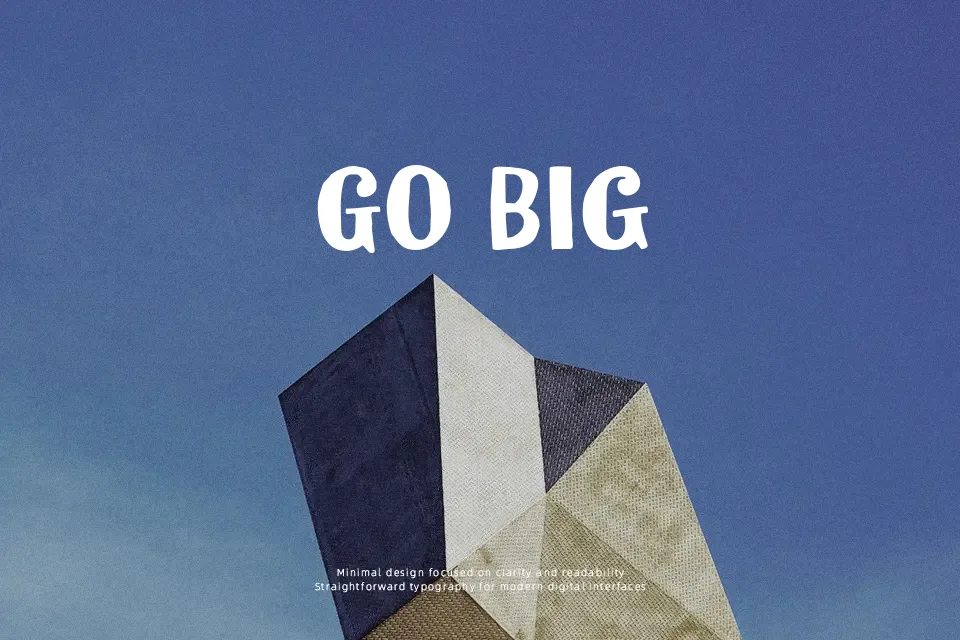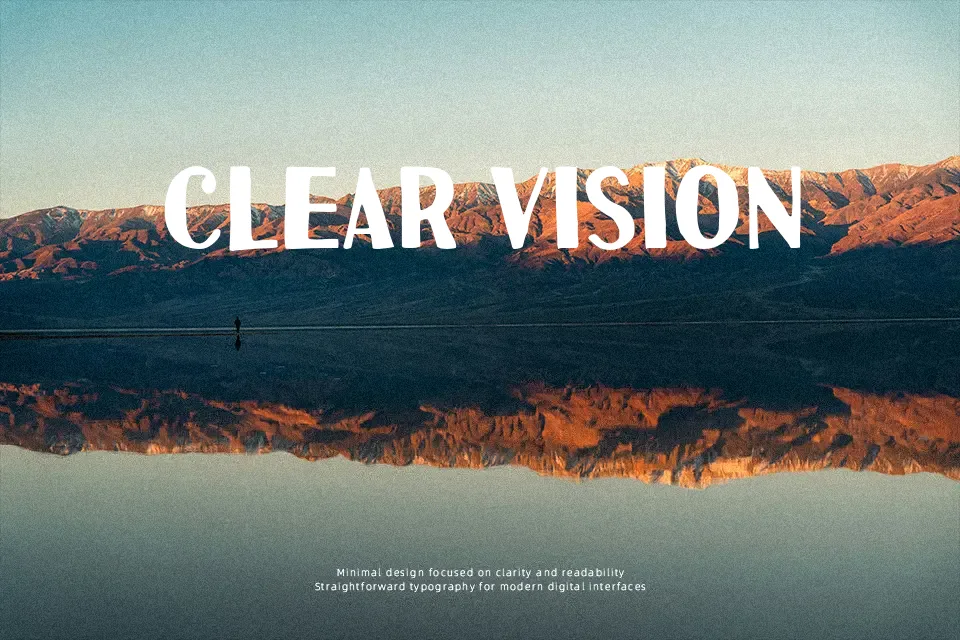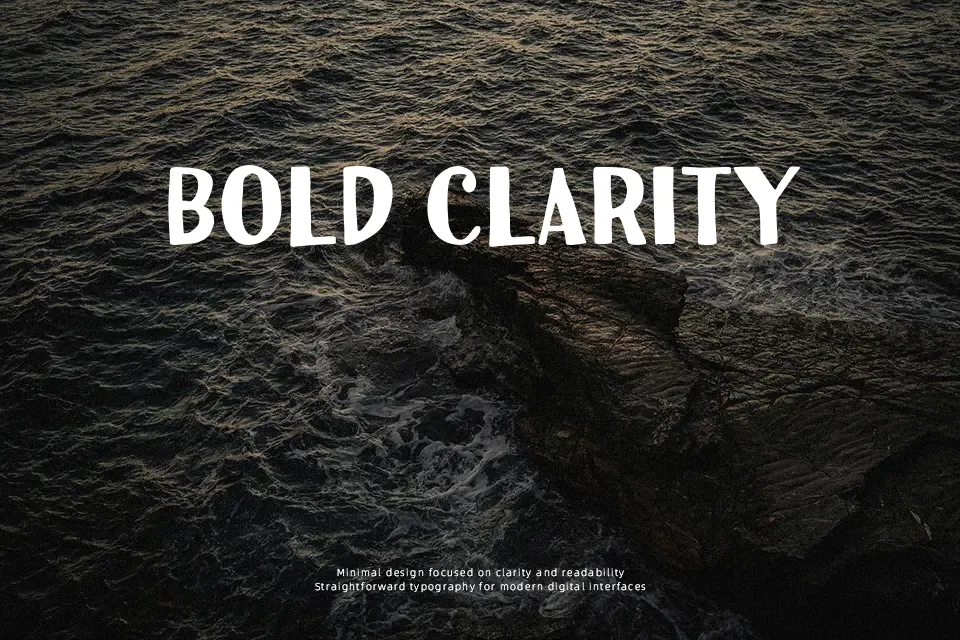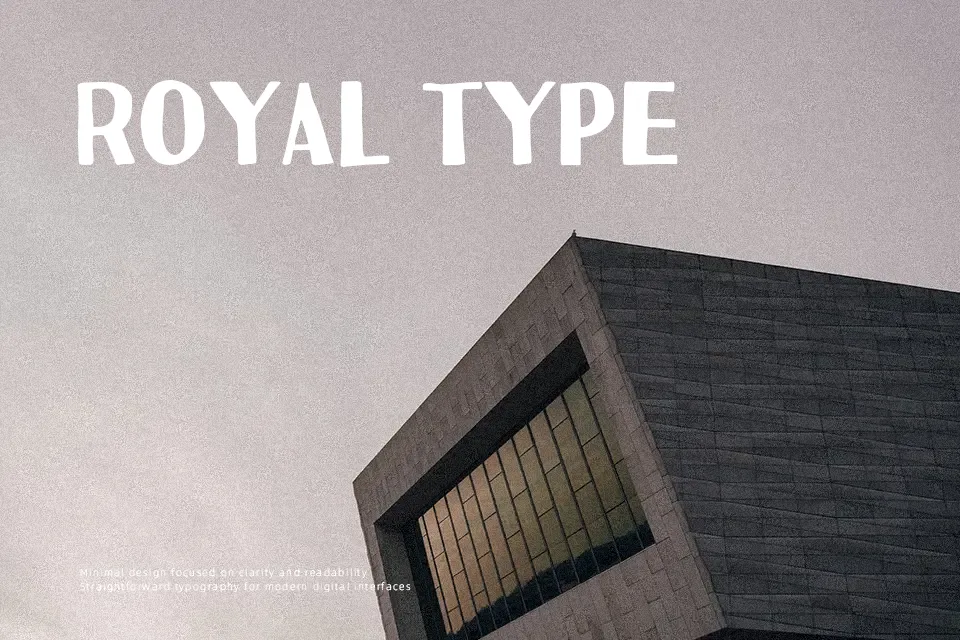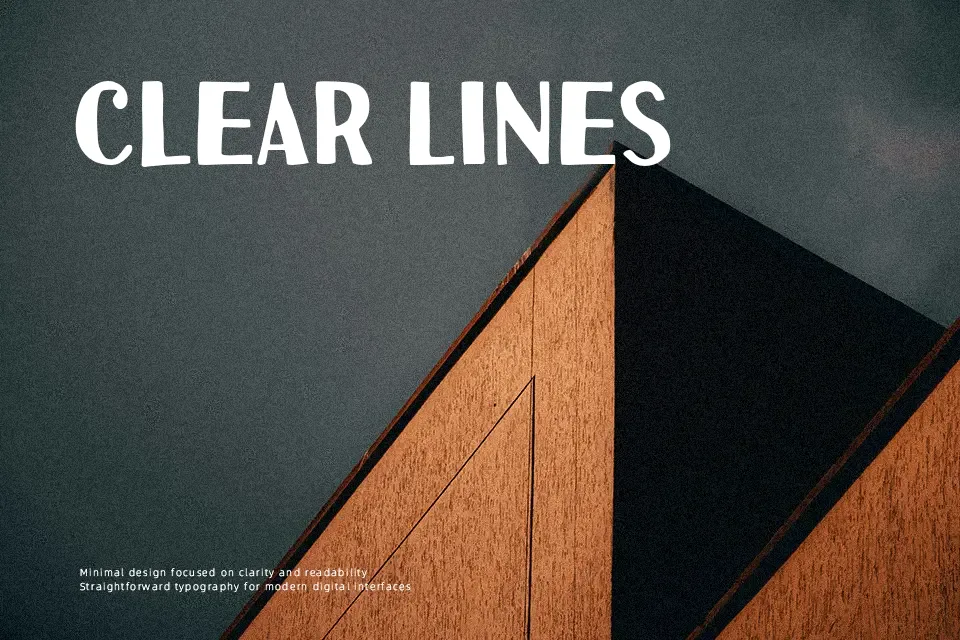
Uchiyama Font
Uchiyama Font uses irregular hand-drawn letterforms, rounded curves, and varied stroke movement to give short text a loose display presence. The proportions feel deliberately uneven rather than mechanically uniform, while the spacing leaves each character room to retain its individual shape. Uppercase, lowercase, numerals, and punctuation follow the same informal visual rhythm. It works most comfortably in large headlines, labels, and packaging where its character can be seen clearly. The typeface is less effective for compact copy or small captions, as its shifting details can make extended reading feel busy. The spacing helps preserve distinction in larger settings.
Best For: restaurant menu headers,food packaging labels,poster headlines,casual brand graphics
Perfect for branding, headline, and packaging, with a artistic and decorative style.